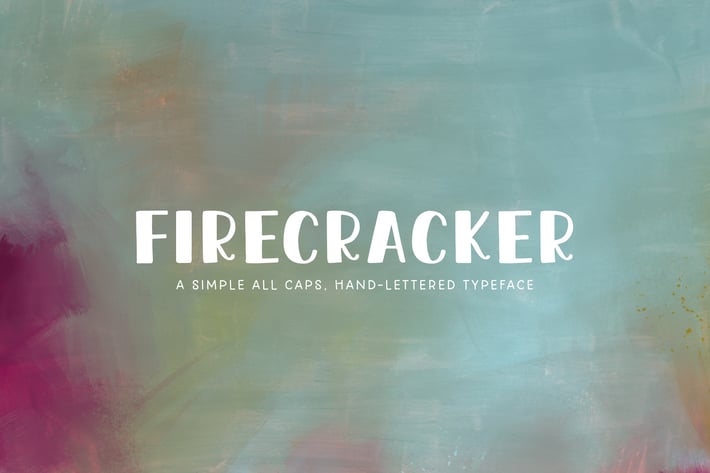
Firecracker Typeface
Say hello to Firecracker, a simple thick & thin typeface for super legible quotes and branding! Use on totes, notes, greeting cards, logos, social media and MORE!